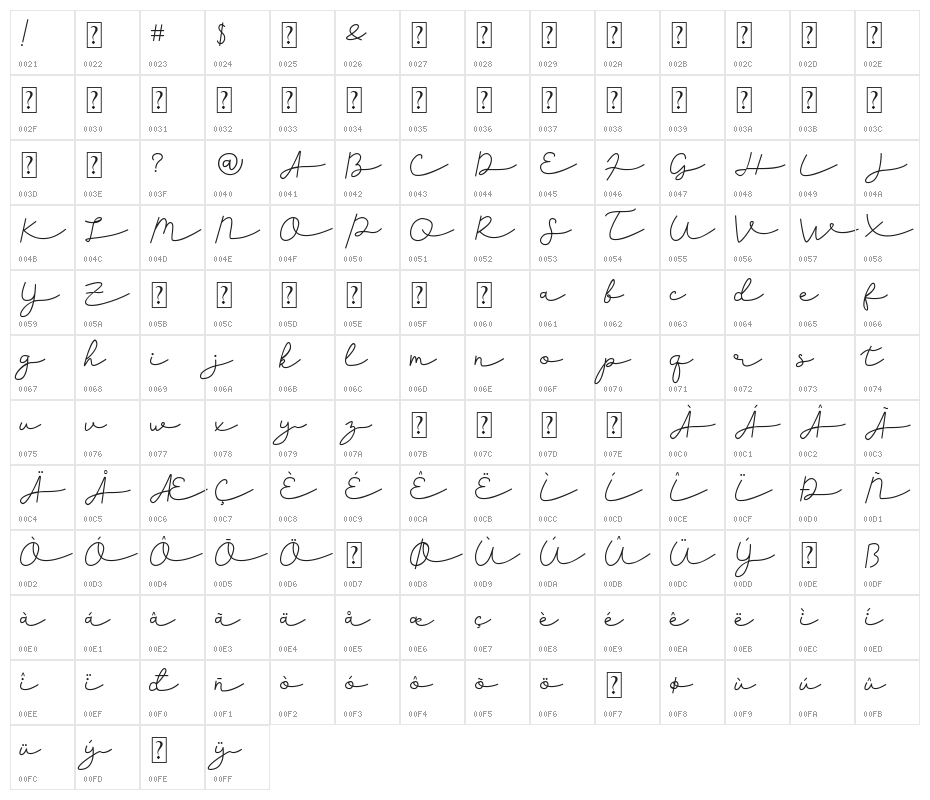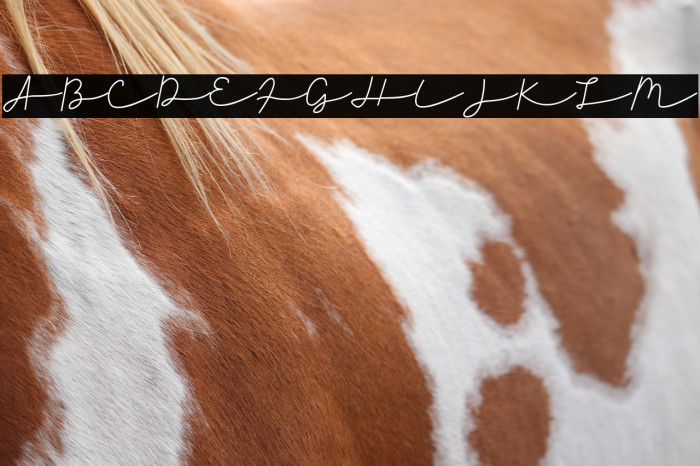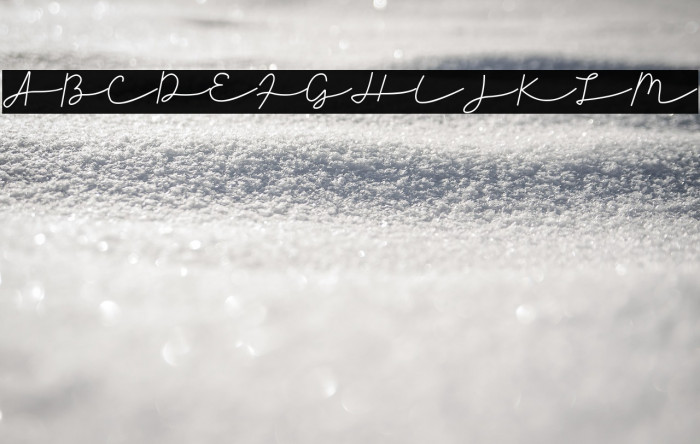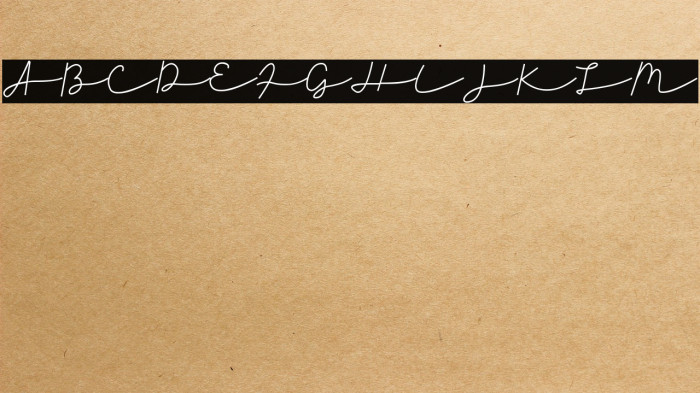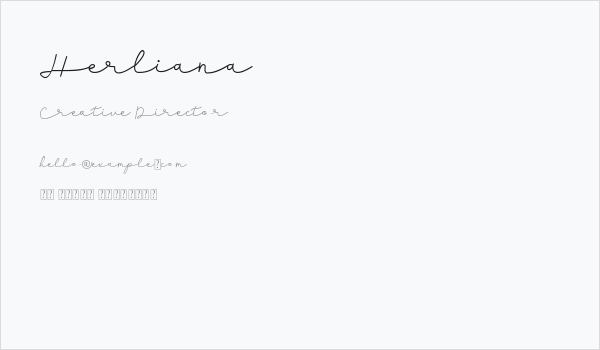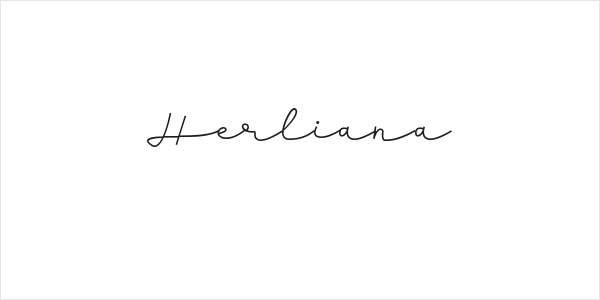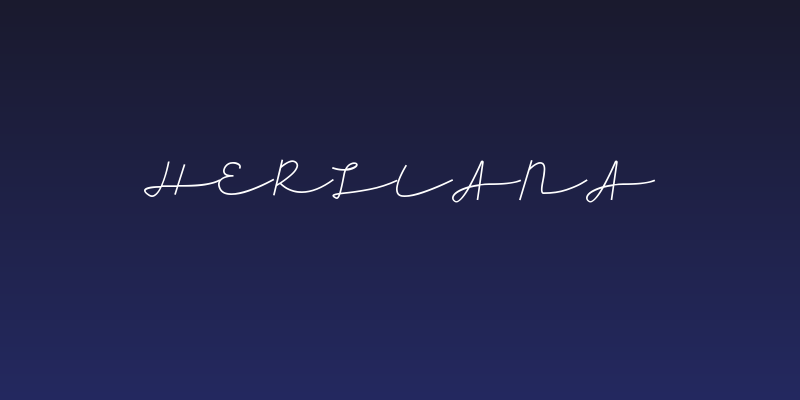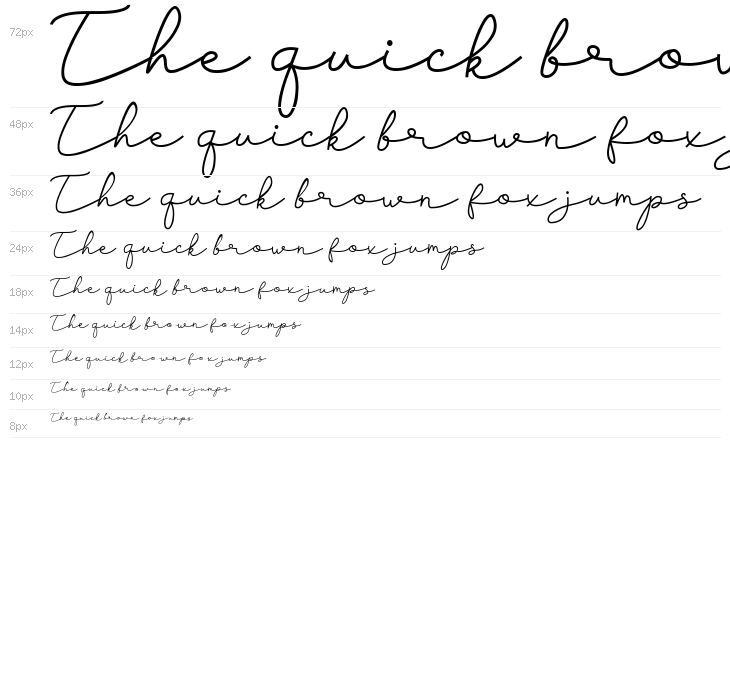
Herliana Font
Herliana Description
This font features a delicate, flowing script style that mimics elegant handwriting. The uppercase letters are slightly more restrained, maintaining a consistent height and smooth curves, while the lowercase letters exhibit a more pronounced slant and flourish, adding a touch of sophistication. The characters are connected, enhancing the cursive appearance, and the overall design is airy and graceful. The font's thin strokes and gentle curves create a sense of fluidity and movement, making it ideal for projects that require a personal, handwritten touch.